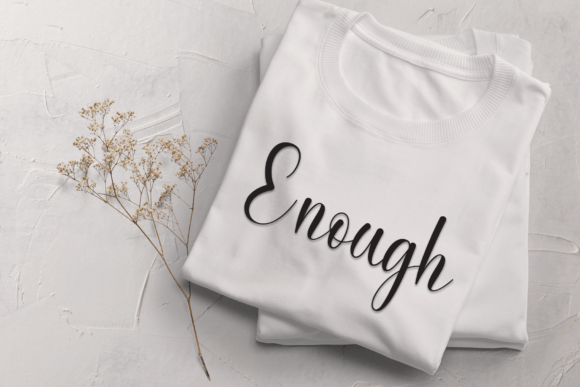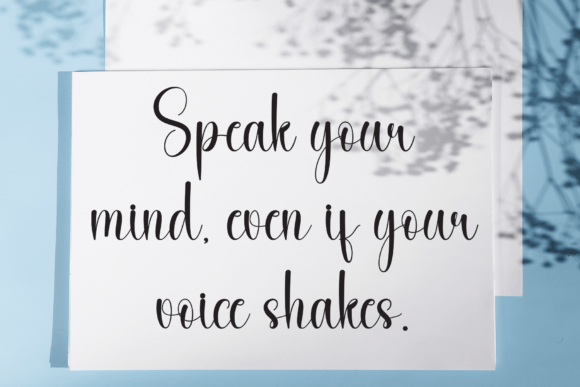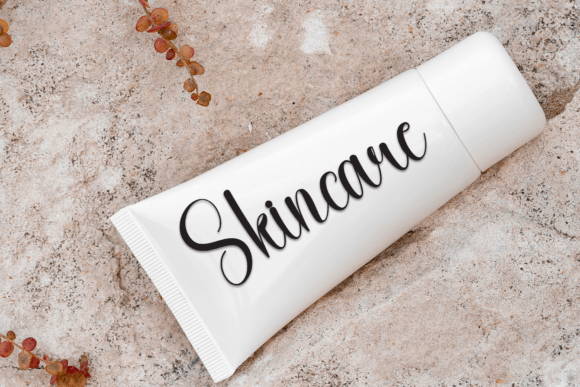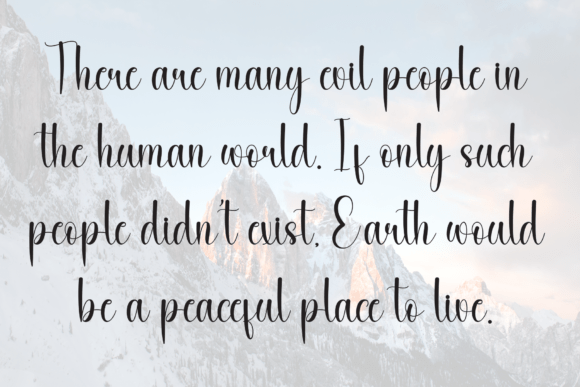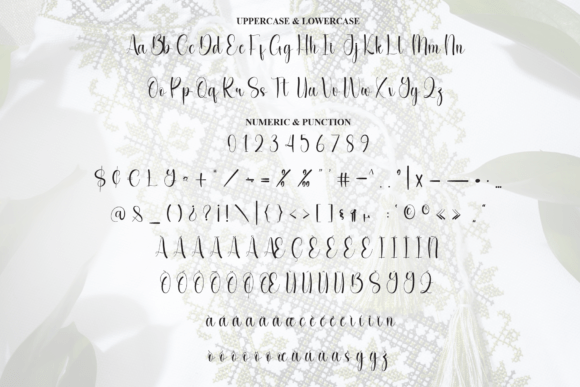
Embroidery Font: Elevate Your Designs with Elegance and Sophistication
Are you a designer or crafter looking for a font that embodies elegance and contemporary charm? Look no further than Embroidery Font, a stylish script font that is sure to elevate your designs to the next level. With its graceful strokes, fluid curves, and carefully crafted letterforms, Embroidery Font captures the beauty of hand-drawn calligraphy with a modern twist.
The Beauty of Embroidery Font
Embroidery Font is a masterful blend of traditional calligraphy and modern design. Its elegant strokes and fluid curves give it a natural, hand-drawn feel that is perfect for a wide range of design applications. From logos and invitations to packaging and social media graphics, Embroidery Font adds a refined and sophisticated touch to any design.
One of the standout features of Embroidery Font is its versatility. Whether you’re looking to create a bold and eye-catching design or a more subtle and understated one, Embroidery Font delivers. Its polished details and natural flow make it perfect for use in a variety of contexts, from high-end branding and advertising to DIY crafts and hobbies.
Design Applications for Embroidery Font
So, what can you use Embroidery Font for? The possibilities are endless! Here are a few ideas to get you started:
- Logos: Create a professional and sophisticated logo for your business or brand with Embroidery Font.
- Invitations: Add a touch of elegance to your wedding invitations, birthday party invites, or other special occasion announcements.
- Packaging: Elevate your product packaging with Embroidery Font, perfect for luxury brands, cosmetics, and gourmet food products.
- Social Media Graphics: Create eye-catching social media graphics, such as Instagram posts, Facebook banners, and Twitter headers, with Embroidery Font.
Why Choose Embroidery Font?
So, why should you choose Embroidery Font for your design projects? Here are just a few reasons:
- Elegance: Embroidery Font exudes elegance and sophistication, perfect for high-end brands and designs.
- Versatility: Use Embroidery Font in a variety of design applications, from logos and invitations to packaging and social media graphics.
- Modern Twist: Embroidery Font brings a modern twist to traditional calligraphy, making it perfect for contemporary designs.
Tips for Using Embroidery Font
Here are a few tips for getting the most out of Embroidery Font:
- Experiment with Colors: Try pairing Embroidery Font with different colors and textures to create unique and eye-catching designs.
- Play with Sizes: Experiment with different font sizes to create visual interest and hierarchy in your designs.
- Combine with Other Fonts: Try pairing Embroidery Font with other fonts to create a unique and stylish design.
In conclusion, Embroidery Font is a stylish script font that is sure to elevate your designs to the next level. With its elegant strokes, fluid curves, and carefully crafted letterforms, it captures the beauty of hand-drawn calligraphy with a modern twist. Whether you’re a designer or crafter, Embroidery Font is the perfect choice for adding a refined and sophisticated touch to any design. So why wait? Download Embroidery Font today and start creating stunning designs that exude elegance and sophistication!